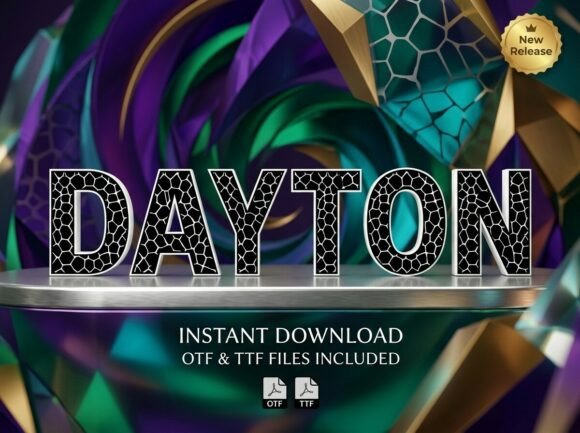
Unlock the Power of Dayton Font: Elevate Your Designs with Geometric Precision
In the world of typography, a font can make or break a design. For creatives looking to add a touch of modern sophistication and precision to their work, Dayton Font is a game-changer. This premium geometric display font is designed to unlock a striking dimension of texture and structural precision, making it perfect for a wide range of applications.
What is Dayton Font?
Dayton Font is a cutting-edge, geometric display font that boasts a unique blend of modernity and precision. Its sleek lines, sharp edges, and futuristic aesthetic make it an ideal choice for designers looking to create striking visuals. Whether you’re working on apparel graphics, tech branding, gaming UI headers, or social media promotions, Dayton Font is the perfect tool to elevate your designs.
Key Features of Dayton Font
- Geometric Precision: Dayton Font features precise geometric shapes, ensuring a clean and modern look that is perfect for designs requiring a high level of accuracy.
- Versatility: With its wide range of applications, Dayton Font is an excellent addition to any designer’s toolkit.
- Premium Quality: As a premium font, Dayton Font is crafted with attention to detail, ensuring a high level of quality and consistency.
Applications of Dayton Font
Dayton Font’s versatility is one of its standout features. Here are some of the many applications where this font excels:
- Modern Apparel Graphics: Add a touch of sophistication to your apparel designs with Dayton Font’s sleek, modern aesthetic.
- Progressive Tech Branding: Elevate your tech brand with a font that exudes innovation and precision.
- Sci-Fi Gaming UI Headers: Create immersive gaming experiences with Dayton Font’s futuristic and precise design.
- Eye-Catching Social Media Promotions: Grab attention with Dayton Font’s striking visuals, perfect for social media promotions and advertisements.
Design Inspiration with Dayton Font
To truly appreciate the potential of Dayton Font, let’s explore some design inspiration ideas:
- Iridescent Metallic Tiles: Pair Dayton Font with iridescent metallic tiles for a design that shines with modernity.
- Deep Gemstone Gradients: Combine Dayton Font with deep gemstone gradients for a luxurious and sophisticated look.
- Floating Crystal Vectors: Create a futuristic design by pairing Dayton Font with floating crystal vectors.
To get the most out of Dayton Font, here are some tips for designers and crafters:
- Experiment with Colors: Don’t be afraid to try out different color combinations to find the perfect match for your design.
- Play with Texture: Add depth to your design by experimenting with various textures and patterns.
- Keep it Simple: Remember, sometimes less is more. Let Dayton Font’s precision and geometric shapes take center stage.
Dayton Font is a powerful tool for designers and crafters looking to elevate their work with a touch of modern sophistication and precision. With its geometric shapes, versatility, and premium quality, this font is perfect for a wide range of applications. Whether you’re working on apparel graphics, tech branding, gaming UI headers, or social media promotions, Dayton Font is the perfect choice. Unlock a striking dimension of texture and structural precision with Dayton Font and take your designs to the next level.